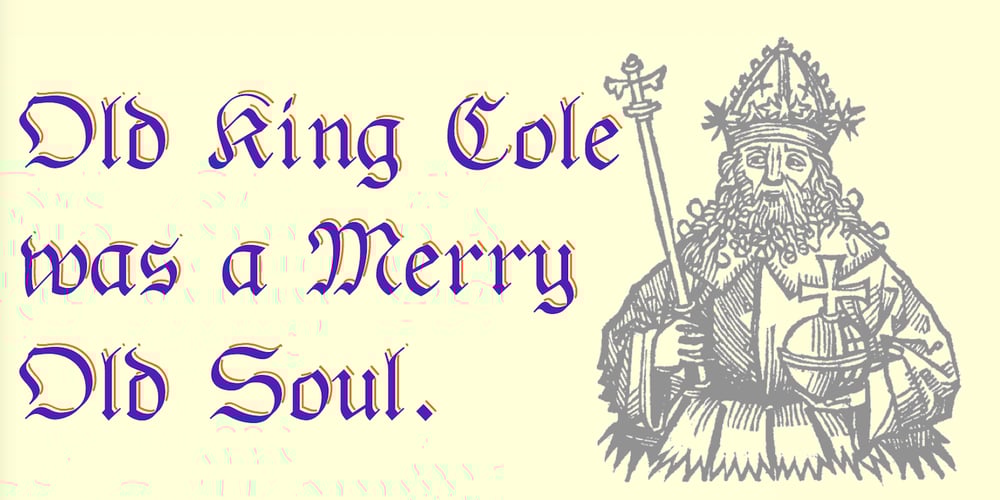
PhederFrack Font Family was designed by Robert Schenk and published by Ingrimayne Type. PhederFrack contains 5 styles and family package options. PhederFrack is a calligraphic Fraktur face with three weights and a shadowed version. The shadow of the shadow version is also a separate font and it can be used to overlay the shadowed version, giving the shadow a different color than the letters.